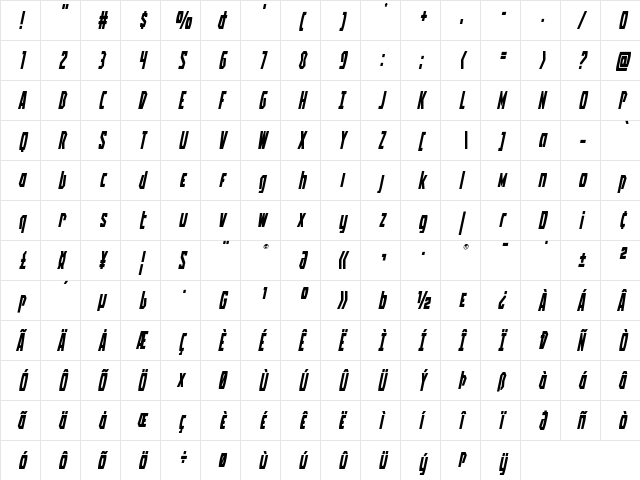
Battleworld Title Italic Italic
Design Context for Battleworld Title Italic Typeface
Battleworld Title Italic is a composed and adaptable typeface that performs quietly and consistently across a wide range of design contexts. The slanted form adds forward momentum and visual energy.
Pro Tip: Use Battleworld Title Italic for emphasis, pull quotes, and subheadings where its slanted energy can add rhythm to the layout.